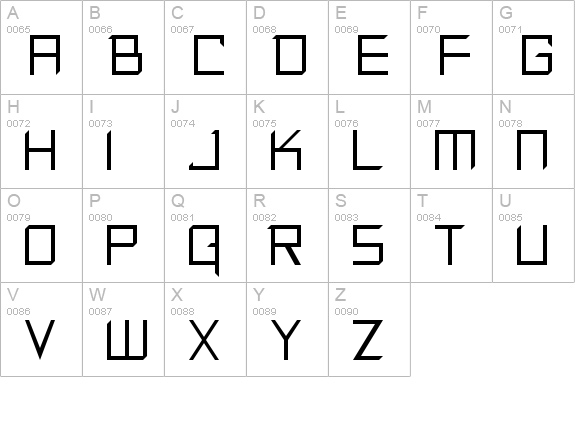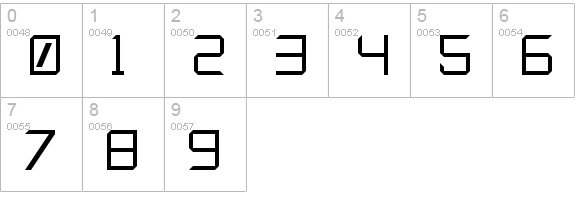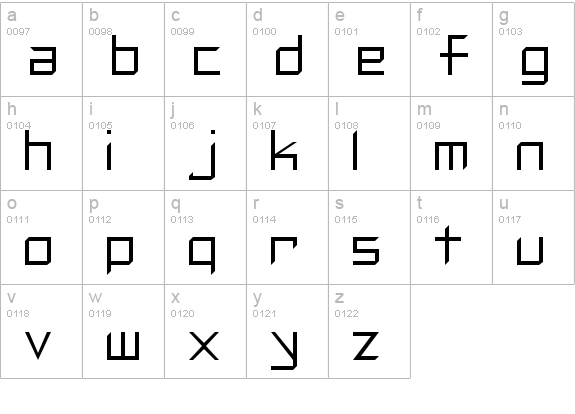
Maximal Beasts Font Details
Maximal Beasts font is a bold and powerful typeface that exudes strength and character. With its sharp angles and rugged appearance, this font is perfect for making a statement in your designs. Whether you're looking to add a touch of fierceness to your project or simply want to stand out from the crowd, Maximal Beasts is the ideal choice. This versatile font is suitable for a wide range of applications, from branding and advertising to poster design and social media graphics. Its unique design will captivate your audience and leave a lasting impression. The best part? Maximal Beasts font is completely free to download at FontsMarket.com. So why wait? Add this striking typeface to your collection today and unleash the full potential of your designs with Maximal Beasts.